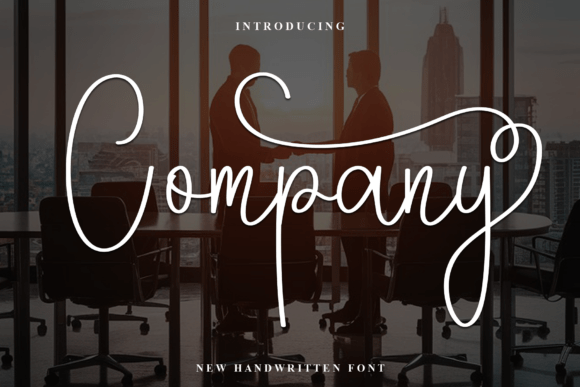
Introducing Company Font: Elevate Your Design with Artistic Flair and Contemporary Elegance
In the world of typography, fonts play a crucial role in conveying the tone and personality of a brand. When it comes to creating a lasting impression, the right font can make all the difference. This is where Company Font comes in – a stylish script font that exudes artistic flair and contemporary elegance. With its fluid brush strokes, dynamic curves, and expressive letterforms, Company Font captures the essence of hand-painted calligraphy with a modern twist.
The Art of Hand-Painted Calligraphy
Hand-painted calligraphy has long been a revered art form, prized for its unique, human touch. The fluidity of brush strokes, the expressiveness of letterforms, and the dynamic curves all come together to create a visually stunning effect. Company Font takes inspiration from this traditional art form and injects it with a modern twist, making it perfect for a wide range of design applications.
Key Features of Company Font
- Fluid Brush Strokes: Company Font features fluid brush strokes that give it a natural, hand-painted feel. Each stroke is carefully crafted to create a sense of movement and energy.
- Dynamic Curves: The font’s dynamic curves add a touch of elegance and sophistication, making it perfect for high-end brands and luxury designs.
- Expressive Letterforms: Each letterform is carefully designed to be expressive and unique, giving the font a distinctive character that sets it apart from others.
- Modern Twist: Company Font takes traditional hand-painted calligraphy and gives it a modern twist, making it perfect for contemporary designs and brands.
Perfect for a Wide Range of Design Applications
Company Font is an incredibly versatile font that can be used in a wide range of design applications. Whether you’re looking to create a stunning logo, an elegant invitation, or a bold packaging design, this font is sure to impress. Its artistic flair and contemporary elegance make it perfect for:
- Logos: Create a lasting impression with a unique and memorable logo that showcases your brand’s personality.
- Invitations: Add a touch of elegance and sophistication to your invitations, making them truly special and unforgettable.
- Packaging: Stand out on store shelves with bold and eye-catching packaging designs that showcase your brand’s personality.
- Social Media Graphics: Elevate your social media presence with stunning graphics that showcase your brand’s artistic flair and contemporary elegance.
The Benefits of Using Company Font
So why choose Company Font for your design needs? Here are just a few benefits of using this stunning script font:
- Visual Impact: Company Font delivers a significant visual impact, making it perfect for designs that need to stand out.
- Versatility: With its wide range of design applications, Company Font is an incredibly versatile font that can be used in many different contexts.
- Creative and Sophisticated: This font adds a creative and sophisticated touch to any design, making it perfect for brands that want to elevate their visual identity.
- Elegance and Artistic Flair: Company Font exudes elegance and artistic flair, making it perfect for high-end brands and luxury designs.
Tips for Using Company Font Effectively
To get the most out of Company Font, here are a few tips for using it effectively:
- Use it Sparingly: While Company Font is a stunning font, it’s best used sparingly to avoid overwhelming the design. Use it for headings or key messages to create a lasting impression.
- Experiment with Colors: Company Font looks stunning in a wide range of colors, so don’t be afraid to experiment and find the perfect hue to match your brand’s personality.
- Pair it with Other Fonts: Company Font can be paired with other fonts to create a unique and visually appealing effect. Try pairing it with a clean sans-serif font for a bold and modern look.
In conclusion, Company Font is a stylish script font that exudes artistic flair and contemporary elegance. With its fluid brush strokes, dynamic curves, and expressive letterforms, it captures the essence of hand-painted calligraphy with a modern twist. Perfect for a wide range of design applications, this font delivers both visual impact and versatility. Whether you’re looking to create a stunning logo, an elegant invitation, or a bold packaging design, Company Font is sure to impress.